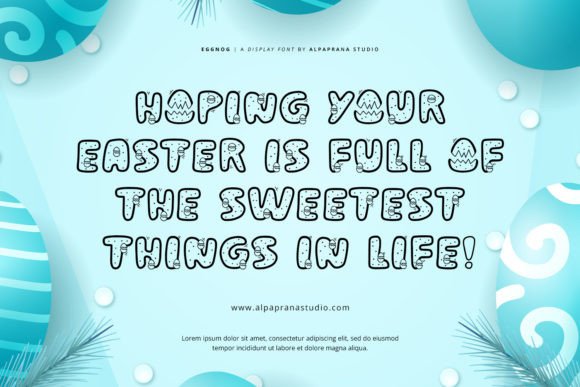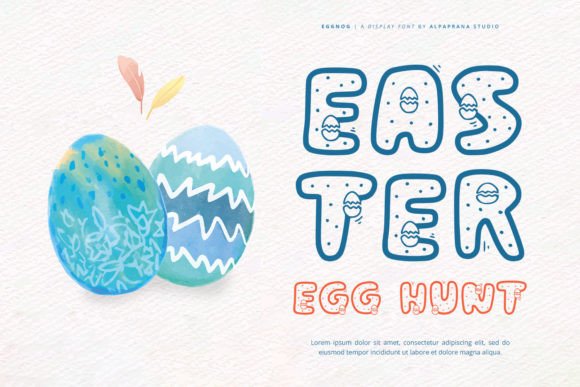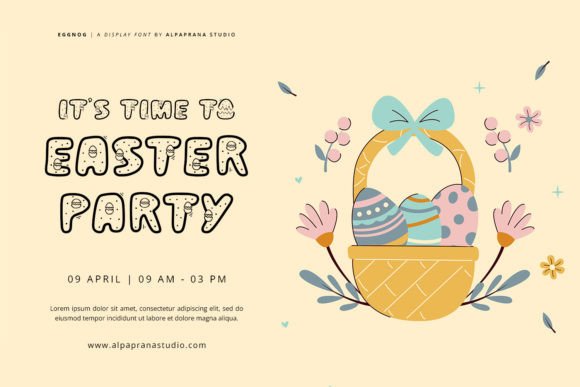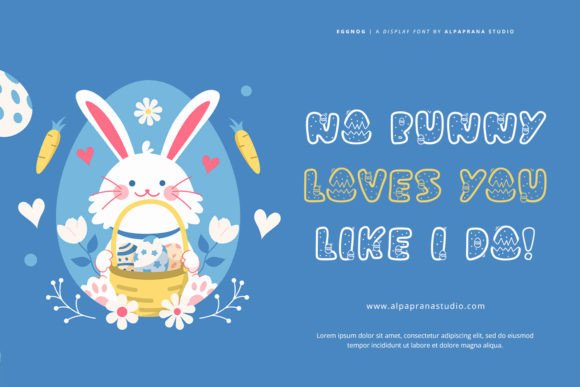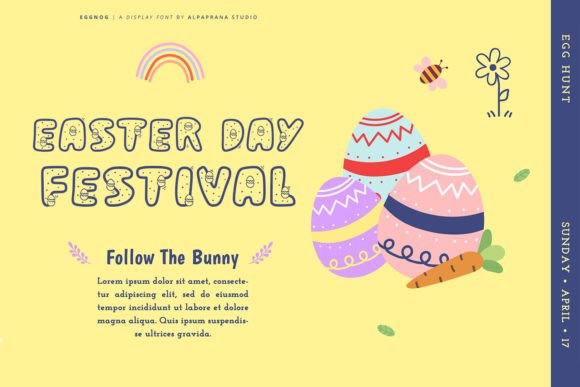
Introducing Eggnog Font: The Ultimate Display Font for Playful Designs
Are you a designer or crafter looking for a font that can add a touch of playfulness and cuteness to your projects? Look no further than Eggnog Font! This display font is perfect for creating eye-catching designs that are sure to stand out. In this article, we’ll dive into the features and benefits of Eggnog Font, and explore how it can be used in a variety of creative projects.
What is Eggnog Font?
Eggnog Font is a display font designed with a cute and playful feel in mind. Its unique and charming design makes it perfect for adding a touch of whimsy to any project. Whether you’re creating a logo, lettering, or a poster, Eggnog Font is sure to bring a smile to your audience’s face.
Key Features of Eggnog Font
- Cute and Playful Design: Eggnog Font has a unique and charming design that is sure to add a touch of playfulness to any project.
- Versatile: Eggnog Font can be used in a variety of creative projects, including branding, logo design, lettering, logotype, clothing, posters, magazines, packaging, and more.
- Easy to Read: Despite its playful design, Eggnog Font is easy to read and understand, making it perfect for use in titles, headings, and other display text.
Uses for Eggnog Font
Eggnog Font is a versatile font that can be used in a wide range of creative projects. Here are some ideas to get you started:
- Branding and Logo Design: Use Eggnog Font to create a unique and memorable logo for your brand.
- Lettering and Logotype: Add a touch of playfulness to your lettering and logotype with Eggnog Font.
- Clothing and Apparel: Use Eggnog Font to create eye-catching designs for t-shirts, hoodies, and other clothing items.
- Posters and Magazines: Add a touch of whimsy to your posters and magazines with Eggnog Font.
- Packaging and Shopping Bags: Use Eggnog Font to create unique and eye-catching packaging and shopping bags.
- Book Covers and Photography: Add a touch of playfulness to your book covers and photography with Eggnog Font.
- Special Events: Use Eggnog Font to create unique and memorable designs for special events, such as weddings, birthday parties, and more.
Why Choose Eggnog Font?
So why choose Eggnog Font for your next project? Here are just a few reasons:
- Unique and Playful Design: Eggnog Font has a unique and playful design that is sure to stand out.
- Versatile: Eggnog Font can be used in a wide range of creative projects.
Eggnog Font is a versatile and playful display font that is perfect for adding a touch of whimsy to any project. With its unique and charming design, Eggnog Font is sure to stand out in a crowd. Whether you’re a designer or crafter, Eggnog Font is a great choice for any creative project. So why wait? Download Eggnog Font today and start creating!